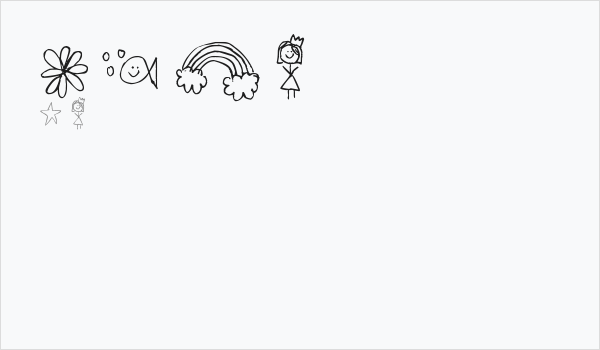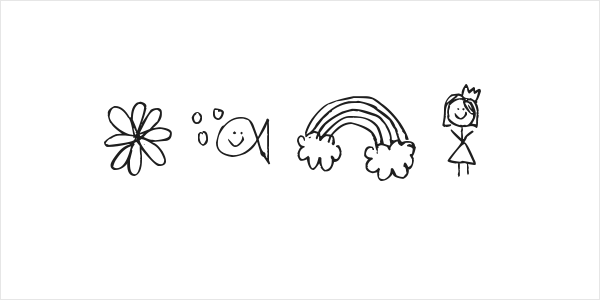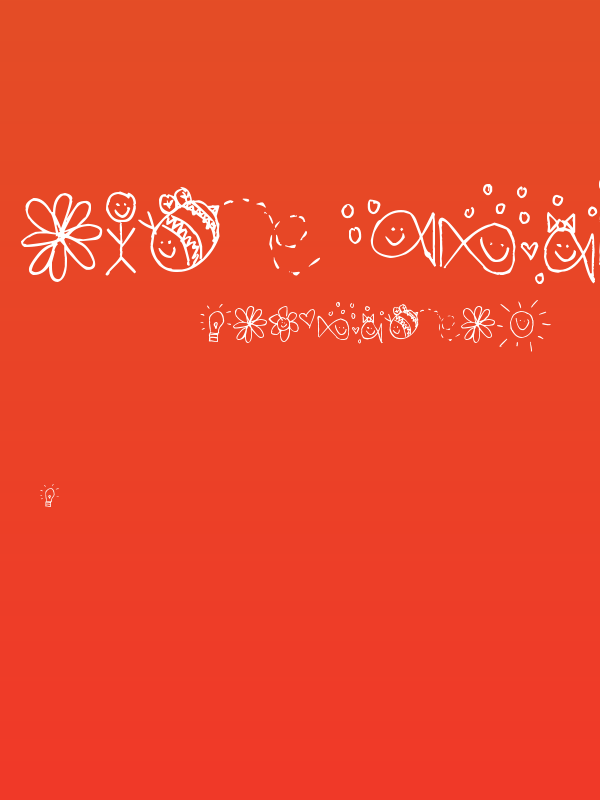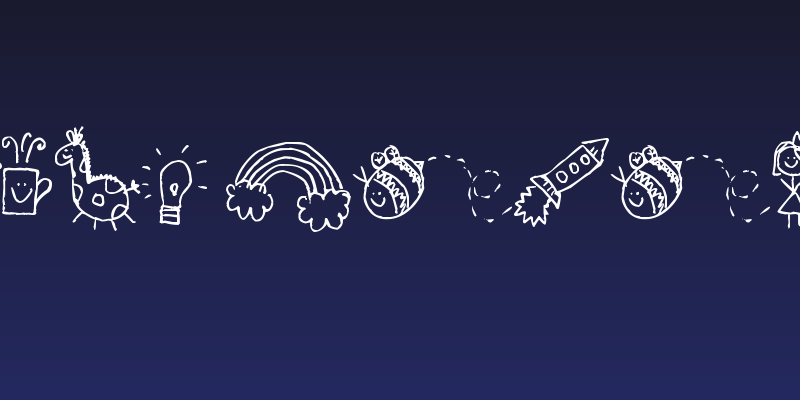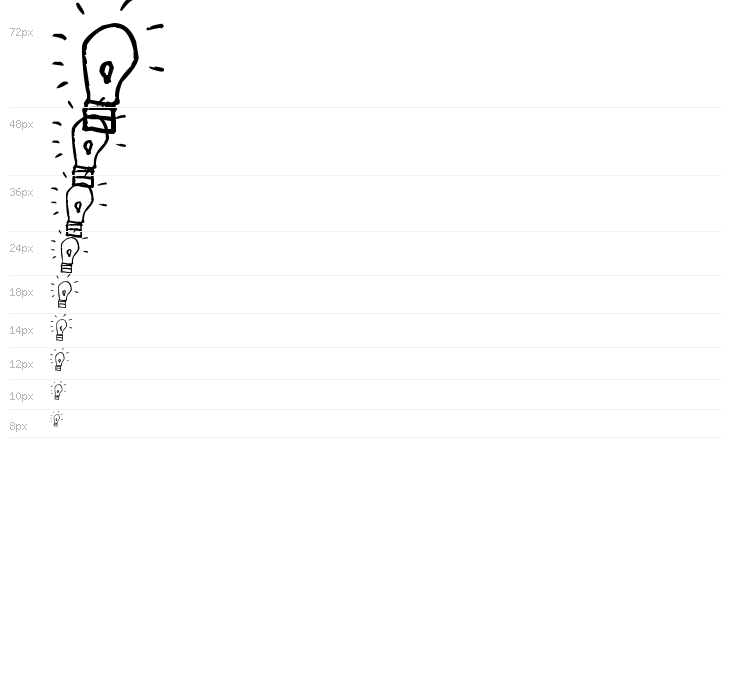
Pea Fruit Salad Doodles Font
Pea Fruit Salad Doodles Description
This is a playful and whimsical collection of doodles featuring a variety of charming and quirky illustrations. The designs include smiling faces, stars, flowers, hearts, and other delightful motifs, each drawn with a casual, hand-drawn style. The doodles exhibit a carefree and joyful aesthetic, perfect for adding a touch of fun and creativity to any project. The lines are simple and clean, with a consistent thickness that maintains a cohesive look throughout the set. These doodles are ideal for projects that require a lighthearted and imaginative touch.
| Use Case | Decorative elements, Illustrations |
| Proposed Projects | Ideal for children's book illustrations, playful greeting cards, scrapbooking, and creative social media graphics. |